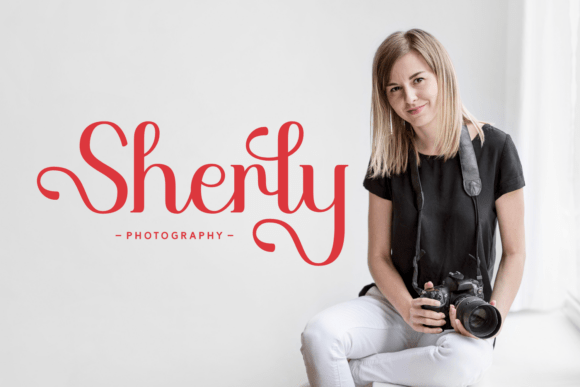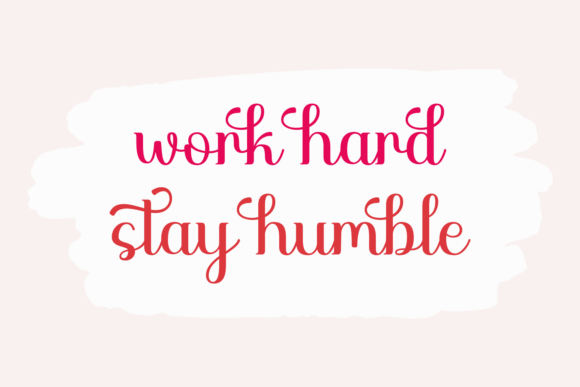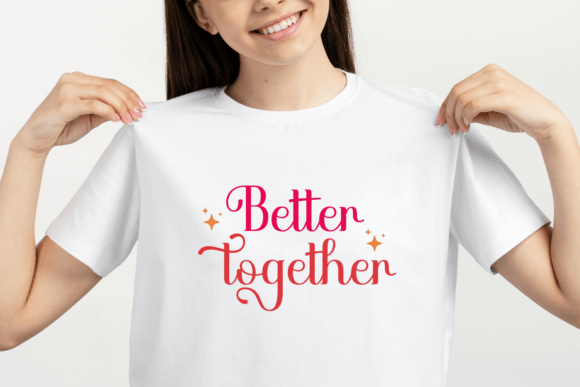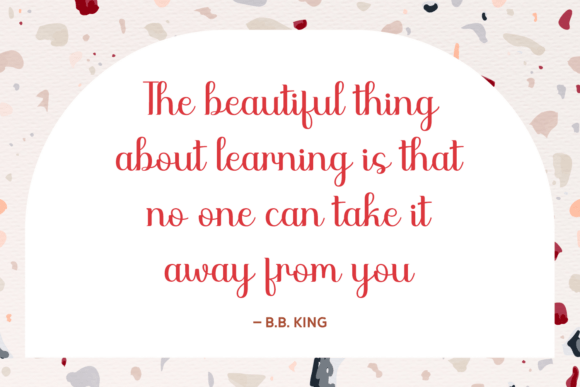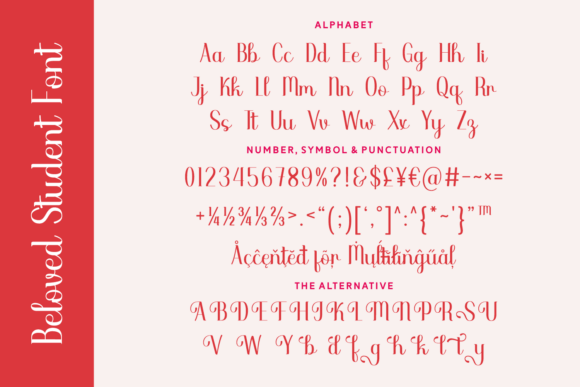
The Beloved Student Font: A Modern Script with Endless Possibilities
This modern script font has a clean, youthful elegance that combines neat curves with subtle flair, making it a delightful choice for school projects, invitations, posters, and student-centric branding. In this article, I’ll dive into the world of Beloved Student, sharing my honest review, a practical guide on how to use it, and some helpful tips and tricks.
Honest Review: What I Love and What I Don’t
- ✅ Clean and elegant design that’s perfect for a variety of projects
- ✅ Subtle flair that adds a touch of sophistication
- ✅ Works beautifully with OpenType features and glyphs
- ⚠️ Limited availability of certain stylistic alternates
- ⚠️ May not be the best choice for very formal or traditional designs
The Story Behind Beloved Student
Beloved Student was designed with the intention of creating a modern script font that would be perfect for student-centric designs. The designer wanted to create a font that was both clean and elegant, with a subtle flair that would add a touch of sophistication. The result is a font that’s both versatile and beautiful.
A: Beloved Student is perfect for student-centric branding, such as logos, business cards, and brochures. Use it to create a cohesive look that’s both modern and elegant.
A: Yes, Beloved Student supports OpenType features, including ligatures and stylistic alternates. Experiment with these features to add some flair to your design.